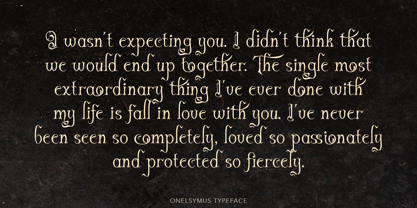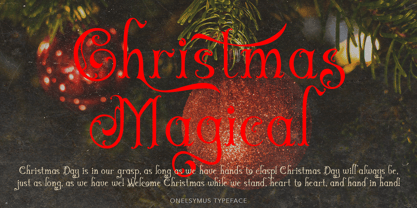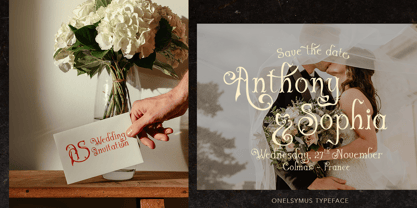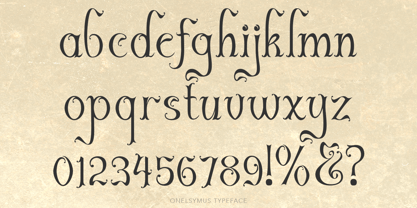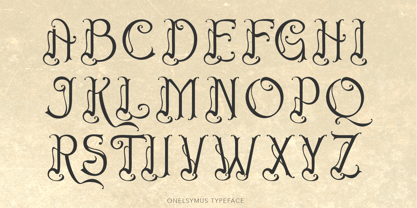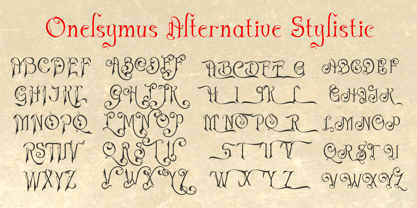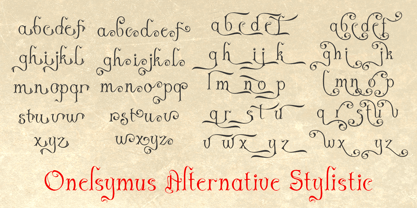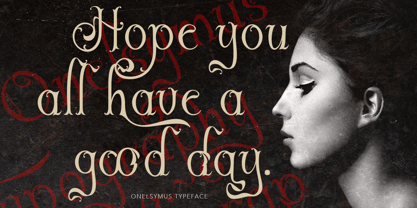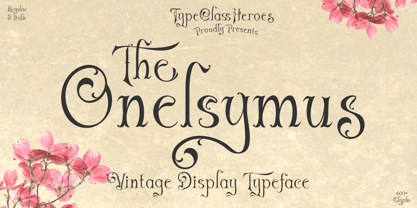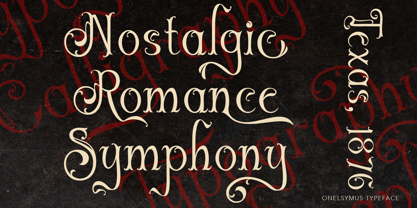
Onelsymus
by TypeClassHeroes
The Onelsymus Font Family was designed by Suandana ipandemade and published by TypeClassHeroes. Onelsymus contains 2 styles and family package options. More about this family
Onelsymus is a high contrast display typeface with sharp serif, designed for impactful headlines, and maintains a strong sense of readability. This offers a variety of options for alternative and ligature creating a timeless yet commanding typographic presence. Perfect for invitations, fashion, branding, logos and many more.
Designers: Suandana ipandemade
Foundry: TypeClassHeroes